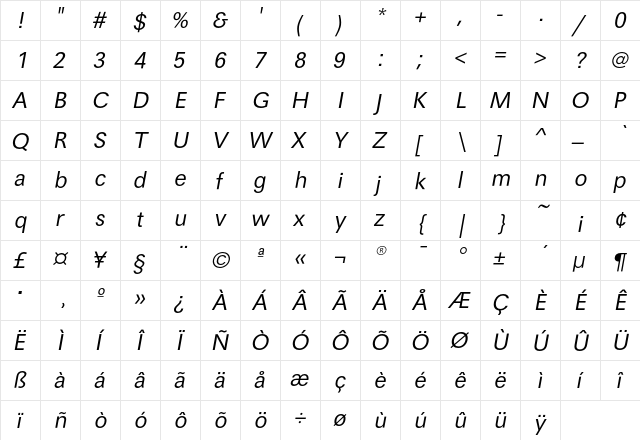
MaximaEF LightOblique
Design Context for MaximaEF Typeface
MaximaEF offers clean, dependable letterforms without strong stylistic allegiance, making it a practical choice for designers who need flexibility. The dynamic lean of this cut emphasises speed and emphasis in any layout. The delicate stroke weight brings airiness and refinement to layouts.
Pro Tip: Try MaximaEF for annotation and caption copy alongside an upright companion — the contrast in angle creates a dynamic but ordered typographic system.